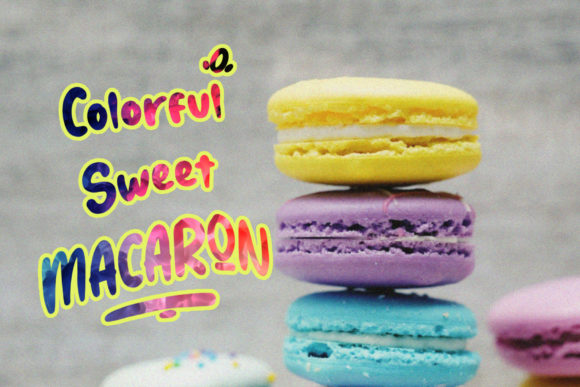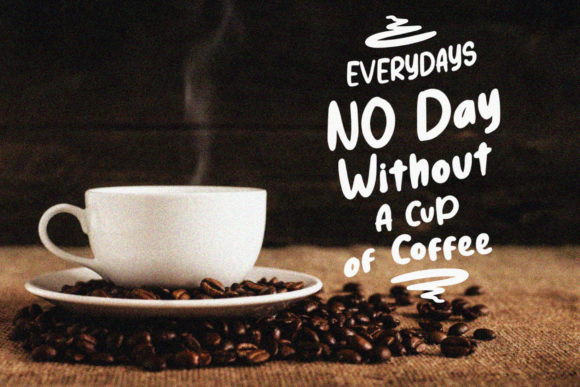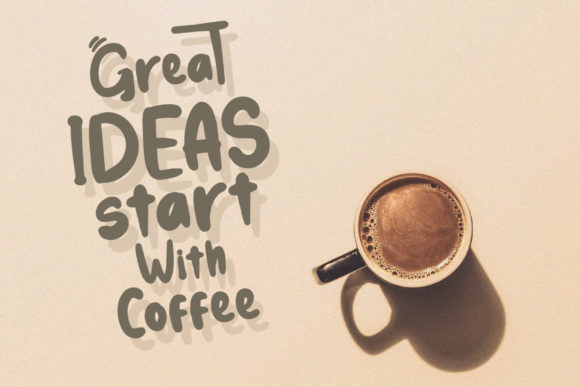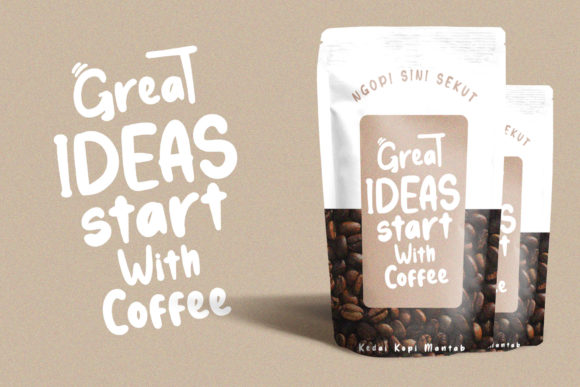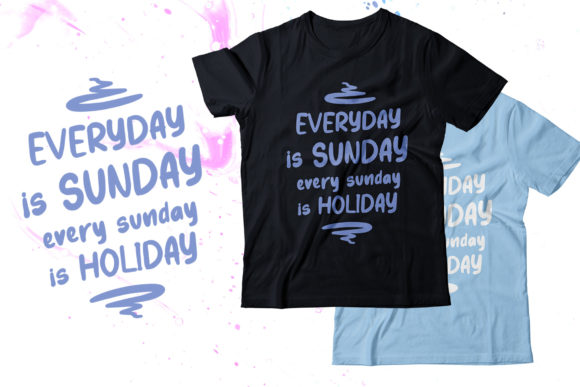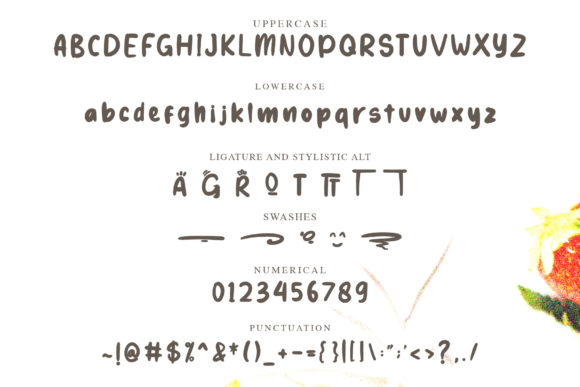
Introduction to Glutteni Font
Glutteni is a gorgeous playful display font, that will make each of your creative ideas stand out.
Its casual charm makes it appear wonderfully down-to-earth, and incredibly versatile Glutteni will look outstanding in any context, whether itโ€™s being used on busy backgrounds or as a standalone headline.
Key Features of Glutteni Font
Why Choose Glutteni Font?